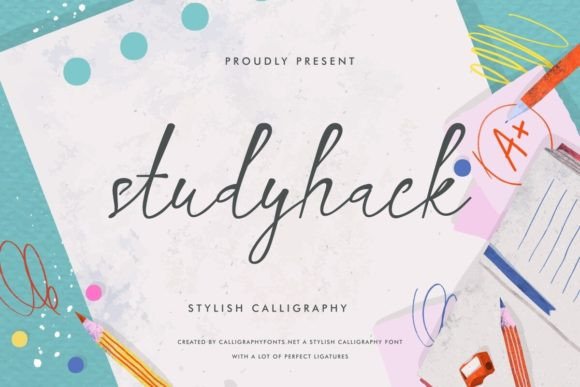
Studyhack is a casual ink pen calligraphy font that blends simplicity with elegance, making it a standout choice in the Script Handwritten category. Its balanced thickness and clean lines offer a timeless appeal that can elevate any design project. Whether you're working on branding, invitations, or social media graphics, Studyhack delivers a refined look without sacrificing readability. For those looking to explore its potential, a Studyhack free download is an excellent starting point.
What is Studyhack?
Studyhack is a versatile Script Handwritten font designed for both personal and professional use. Its unique blend of casual strokes and structured forms makes it ideal for projects that require a touch of sophistication. Unlike many other fonts in this category, Studyhack maintains a consistent weight and spacing, ensuring it works well in various contexts. This makes it a top choice for designers seeking a reliable and stylish option. If you're searching for a Studyhack font download, you'll find it available on multiple platforms, offering flexibility for different design needs.
Letterforms and Weight
The letterforms of Studyhack are characterized by their fluid yet controlled strokes, giving it a natural, handcrafted feel. The font's weight is neither too heavy nor too light, striking a balance that allows it to shine in both body text and display settings. This consistency ensures that it remains legible at various sizes, making it suitable for a wide range of applications.
Spacing and Mood
Studyhack features generous spacing between letters, which enhances its readability while maintaining an elegant aesthetic. The overall mood of the font is calm and sophisticated, making it perfect for projects that require a subtle yet impactful visual presence. Compared to other Script Handwritten fonts, Studyhack stands out for its clean, modern approach without losing the warmth of a handwritten style.
Studyhack for Logo Design
Studyhack is an excellent choice for logo design due to its clean lines and balanced structure. It adds a personal touch to brand identities while maintaining professionalism. Whether you're creating a logo for a small business or a creative agency, Studyhack offers a fresh and modern look that can set your brand apart.
Studyhack for Branding
When it comes to branding, Studyhack provides a versatile foundation that can be adapted to various mediums. Its elegant appearance makes it ideal for packaging, signage, and promotional materials. By incorporating Studyhack into your branding strategy, you can create a cohesive and memorable visual identity that resonates with your audience.
Studyhack for Wedding Invitations
Wedding invitations often require a mix of elegance and personalization, and Studyhack delivers both. Its flowing script adds a romantic touch to event details, making it a popular choice among designers. Whether you're crafting digital or printed invitations, Studyhack brings a sense of refinement that complements the occasion.
Font Pairing & Combinations
Pairing Studyhack with other fonts can enhance its visual impact and versatility. A common approach is to combine it with a clean, sans-serif font for contrast. This pairing works well for headings and body text, offering a balanced and professional look. Another effective combination is using Studyhack alongside a serif font, which can add depth and character to your design. When considering what fonts pair well with Studyhack, look for options that complement its casual yet refined style. These Studyhack font pairing ideas can help you create visually appealing layouts that stand out.
Designer Notes & Tips
As a designer, testing Studyhack in different contexts is essential to understanding its full potential. Try using it in black and white to assess its contrast and readability. Pay attention to how it looks at smaller sizes, as this can affect its overall effectiveness. When comparing Studyhack vs similar fonts, consider factors like weight, spacing, and overall aesthetic. By taking these steps, you can make informed decisions about when and how to use Studyhack in your projects.